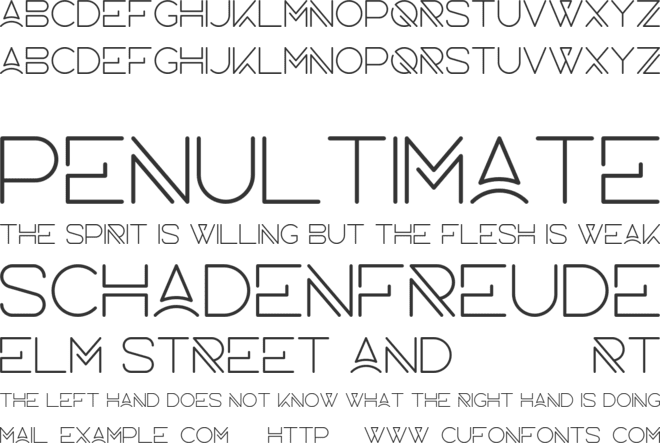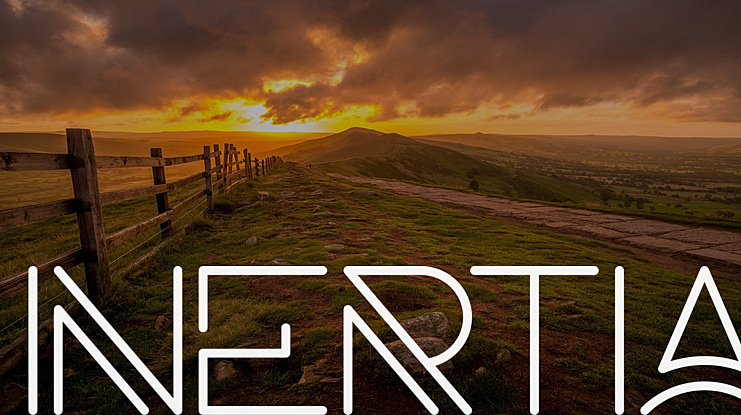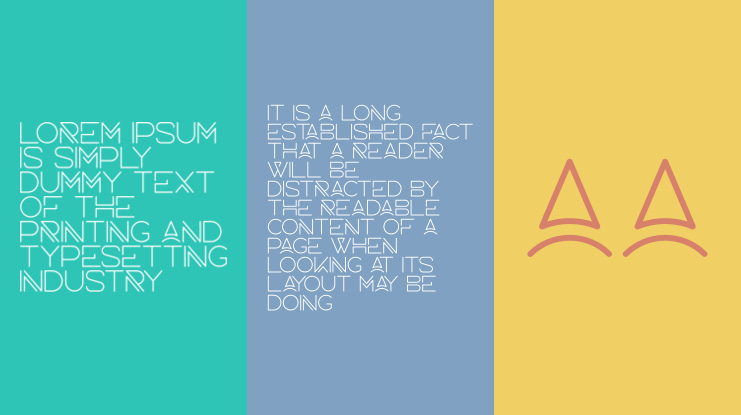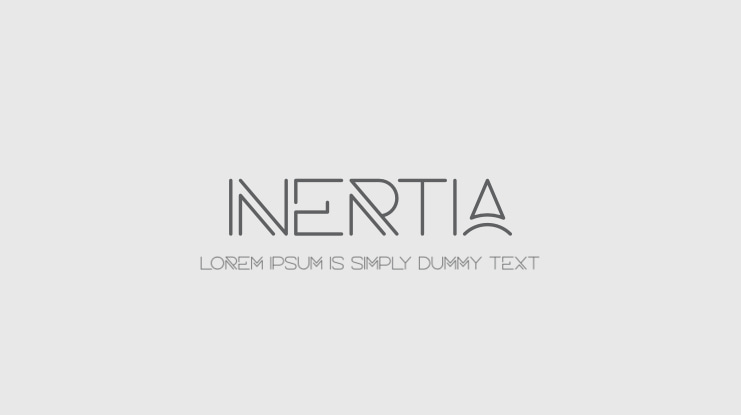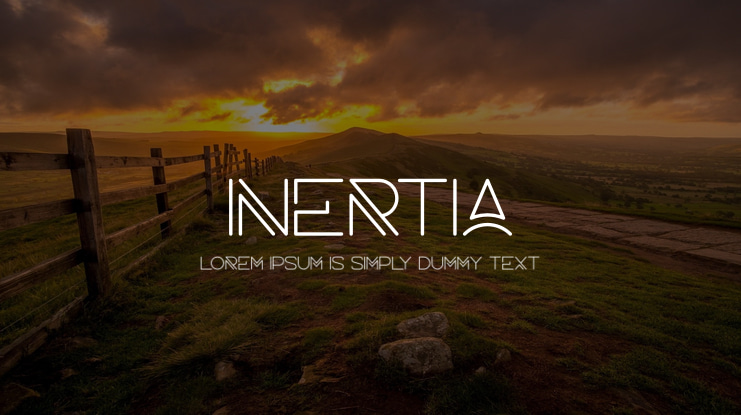
Inertia Font
Introducing Inertia – Logo Typeface | 5 weights
Inertia is futuristic, logo typeface loaded with alternate glyphs, ligatures, 5 weights and multilingual support. It’s a very versatile font that works great in large and small sizes.